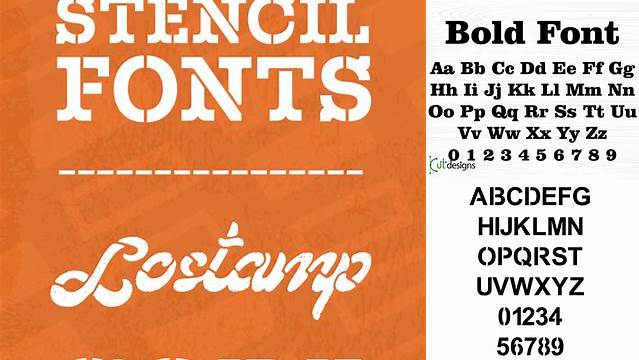
Stencil Bold Fonts: A Comprehensive Guide
Fonts are the unsung heroes of design, and when you need to make a bold statement, a stencil bold font is your go-to choice. Guys, think about it: fonts communicate personality, evoke emotions, and make your message stick. In this comprehensive guide, we're diving deep into the world of stencil bold fonts, exploring their history, uses, and how to choose the perfect one for your next project. Whether you're a seasoned designer or just starting out, understanding the power of fonts stencil bold is crucial for creating impactful visuals.
What are Fonts Stencil Bold?
Fonts stencil bold are a type of typeface characterized by their cut-out sections, resembling the look of letters created using stencils. This design element adds a unique, industrial, and sometimes even military feel to the text. The bold weight amplifies this effect, making the font stand out even more. These fonts are not just about aesthetics; they carry a historical weight, harking back to a time when stencils were a primary method for labeling and marking.
The beauty of fonts stencil bold lies in their versatility. They can be used in a variety of contexts, from branding and advertising to signage and digital design. The bold nature ensures legibility, while the stencil design adds a touch of character and intrigue. When selecting a font stencil bold, consider the overall tone you want to convey. Some are more geometric and modern, while others have a more vintage or rugged feel. Think about how the font will interact with other elements in your design, such as colors, images, and spacing. A well-chosen font stencil bold can elevate your design, giving it a distinctive and memorable look.
Moreover, the technical aspects of fonts stencil bold are worth noting. Designers often face challenges in maintaining readability due to the stencil cuts. The key is to balance the aesthetic appeal with practical considerations. The spaces between the cut-out sections need to be wide enough to ensure that the letters don't appear to merge together, especially when used in smaller sizes. This requires careful attention to detail and a deep understanding of typography. Furthermore, the bold weight needs to be consistent throughout the font family to maintain a cohesive look. In the digital age, fonts stencil bold are available in various formats, including OpenType and TrueType, making them accessible for both print and digital applications. By understanding these nuances, you can harness the full potential of stencil bold fonts and create designs that are both visually striking and functionally effective.
History and Evolution
The history of fonts stencil bold is deeply intertwined with the practical needs of labeling and identification. Stencils have been used for centuries as a quick and efficient way to reproduce text and images. Early applications included marking crates, equipment, and military assets. The industrial revolution further propelled the use of stencils, as factories and warehouses needed to label products and containers quickly and accurately.
As technology advanced, so did the design and application of fonts stencil bold. The basic concept remained the same – letters with cut-out sections – but the styles and variations became more diverse. Designers started experimenting with different shapes, weights, and spacing to create fonts stencil bold that were both functional and aesthetically pleasing. The rise of graphic design in the 20th century brought even more attention to typography, and fonts stencil bold found their way into advertising, posters, and branding.
Today, fonts stencil bold are experiencing a resurgence in popularity, thanks to their unique and versatile appeal. They evoke a sense of history, craftsmanship, and ruggedness, making them ideal for projects that require a strong and distinctive visual identity. From vintage-inspired designs to modern industrial aesthetics, stencil bold fonts continue to evolve and adapt to new trends and technologies. Whether you're looking to create a retro logo or a contemporary website, understanding the history and evolution of fonts stencil bold can help you make informed design choices and create visuals that resonate with your target audience.
Popular Uses of Fonts Stencil Bold
Fonts stencil bold are incredibly versatile, finding their place in a multitude of design applications. Their unique aesthetic lends itself well to projects that need a touch of ruggedness, industrial flair, or vintage charm. Let's explore some of the most popular uses of stencil bold fonts:
Branding and Logos
Many companies choose fonts stencil bold for their logos to convey a sense of strength, reliability, and history. This is especially common in industries such as manufacturing, construction, and outdoor equipment. The bold weight ensures that the logo stands out, while the stencil design adds a distinctive and memorable touch. Think of brands that want to project an image of durability and authenticity – fonts stencil bold are often the perfect fit.
Signage and Wayfinding
Due to their high legibility and distinctive appearance, fonts stencil bold are frequently used for signage and wayfinding systems. They are particularly effective in industrial settings, warehouses, and transportation hubs. The cut-out sections make the letters easily recognizable, even from a distance. Moreover, the bold weight ensures that the text remains visible under various lighting conditions. Whether it's directing people through a factory or labeling different sections of a warehouse, fonts stencil bold provide a clear and concise visual solution.
Posters and Advertisements
Fonts stencil bold can add a powerful visual element to posters and advertisements. They are often used to create a sense of urgency, excitement, or nostalgia. The bold weight grabs attention, while the stencil design adds a unique and eye-catching detail. From promoting concerts and events to advertising products and services, fonts stencil bold can help your message stand out from the crowd. Consider using them in combination with other design elements, such as bold colors and striking imagery, to create a truly impactful visual.
Fonts stencil bold are a powerful design tool that can add a unique and distinctive touch to your projects. Their history, versatility, and visual appeal make them a popular choice for branding, signage, advertising, and digital design. By understanding the characteristics of stencil bold fonts and considering the factors outlined in this guide, you can choose the perfect font for your next project and create visuals that are both impactful and memorable. So go ahead, experiment with fonts stencil bold, and unleash your creativity!